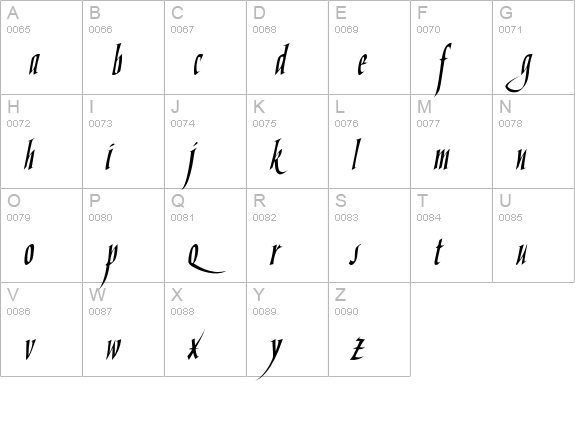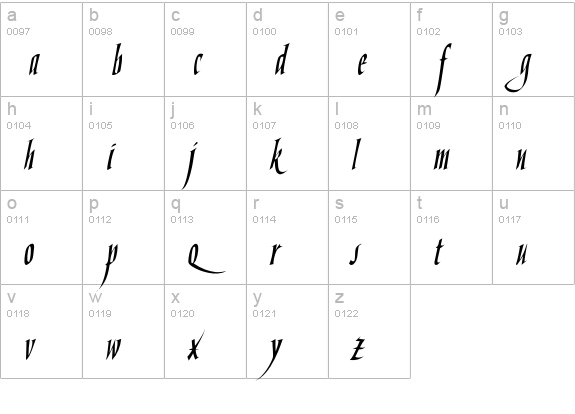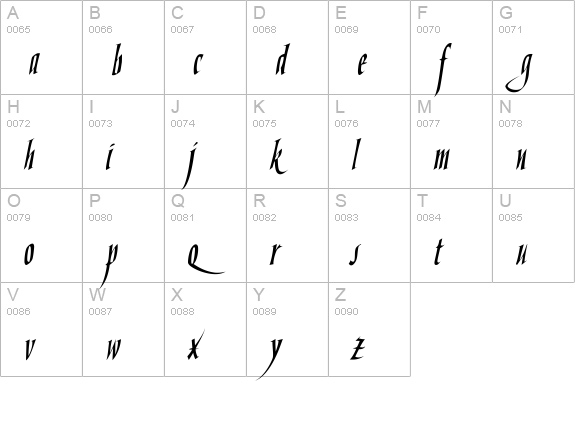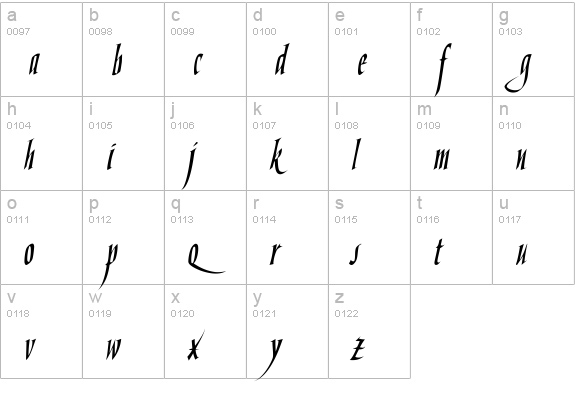
HandskriptOne Font Details
HandskriptOne font is a stunning typeface that brings a touch of elegance and sophistication to any design project. With its delicate and flowing strokes, this font captures the essence of handwritten script, adding a personalized and unique charm to your work. Featuring a perfect balance between legibility and artistic flair, HandskriptOne is a versatile font that can be used for various purposes, including branding, invitations, logos, packaging, and more. Its graceful curves and smooth lines create a sense of refinement and beauty, making it a fantastic choice for projects that require a touch of sophistication. What sets HandskriptOne apart is not just its exceptional design, but also the fact that it is available for free download at FontsMarket.com. This means that you can enjoy the beauty and versatility of this font without having to spend a dime. Whether you are a professional designer or a hobbyist, this font offers you the opportunity to add a touch of elegance to your creations without breaking the bank. With its wide range of characters and language support, HandskriptOne font accommodates various design requirements and enables you to create stunning typography that stands out. Its seamless connectivity and well-balanced proportions make it a joy to work with, ensuring that your designs will always look polished and professional. Whether you are creating wedding invitations, branding materials, or simply adding a touch of sophistication to your personal projects, HandskriptOne font is a must-have in your font collection. Download it for free at FontsMarket.com and experience the beauty and versatility of this exceptional typeface for yourself.